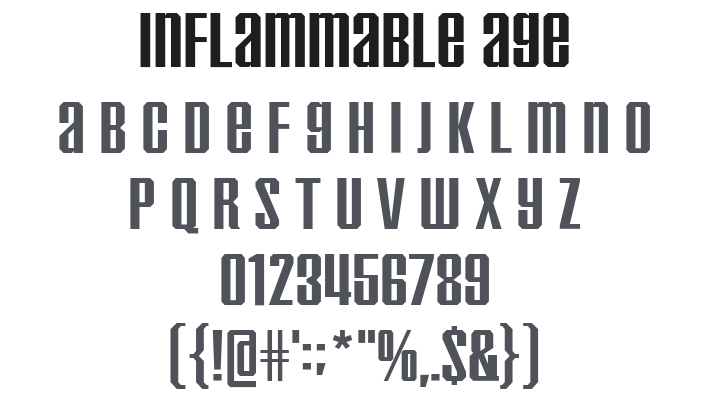
Inflammable Age Font
About Inflammable Age
Inflammable Age is a narrow, octagonal techno display typeface with chamfered corners and unconventional letterforms that blend 1960s technological optimism with industrial precision. Its condensed, high-waisted structure gives it a sharp, mechanical authority that feels both retro and futuristic. Perfect for cyberpunk branding, sci-fi titles, industrial posters, tech product graphics, and any headline demanding uncompromising precision.